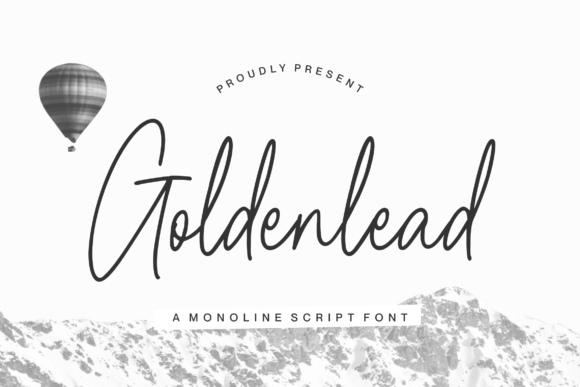
**Goldenlead: The Ultimate Script Font for a Website Text**
In the realm of web design, typography reigns supreme. The font you choose for your website can make or break the user experience, influencing everything from readability to overall aesthetics. Introducing Goldenlead, the exquisite script font that will transform your website into a visual masterpiece. From allouse.studio, the creative minds behind this extraordinary font, comes a font that will redefine the way you present your online content.
Goldenlead is more than just a font; it's an artistic expression that captures the essence of elegance and sophistication. Its thin, delicate letters dance across the screen, creating an allure that draws readers in and keeps them captivated. Whether you're crafting a personal blog, an informative article, or a captivating sales page, Goldenlead provides the perfect foundation for a website text that exudes professionalism and artistry.
**Why Choose Goldenlead for Your Website Text?**
* **Unparalleled Readability:** Goldenlead's meticulously crafted letters are designed to ensure effortless reading. Its well-spaced characters and optimal letterforms guarantee that your content is easy on the eyes, even for extended periods.
* **Visual Appeal:** With its graceful curves and stylish strokes, Goldenlead adds an undeniable touch of beauty to your website. Its unique design will make your content stand out from the mundane and leave a lasting impression on your visitors.
* **Versatility:** Goldenlead isn't limited to a single purpose. Its adaptability shines through in its ability to seamlessly blend with various design aesthetics. From minimalist layouts to vibrant, eye-catching designs, Goldenlead effortlessly complements your website's style.
* **Professionalism:** Goldenlead exudes an aura of professionalism that instantly elevates your website's credibility. Whether you're a business owner, blogger, or creative professional, this font conveys a sense of authority and expertise, inspiring trust and confidence in your audience.
* **Emotional Connection:** Goldenlead has the remarkable ability to evoke emotions. Its delicate strokes and graceful curves create a sense of warmth and intimacy that resonates with readers. By using Goldenlead, you're creating a more personal connection with your audience, fostering a deeper engagement with your content.